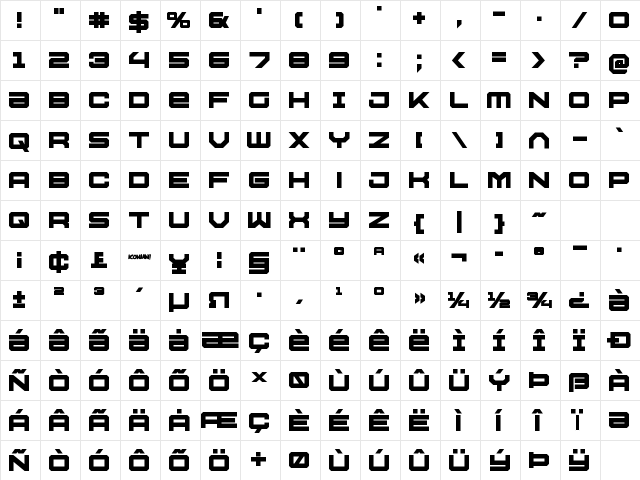
Complete U.S.S. Dallas Bold Bold glyph index. Displaying only characters natively supported by U.S.S. Dallas Bold Bold font.
U.S.S. Dallas Bold is a composed and adaptable typeface that performs quietly and consistently across a wide range of design contexts. Its bold stroke weight gives it real presence on the page.